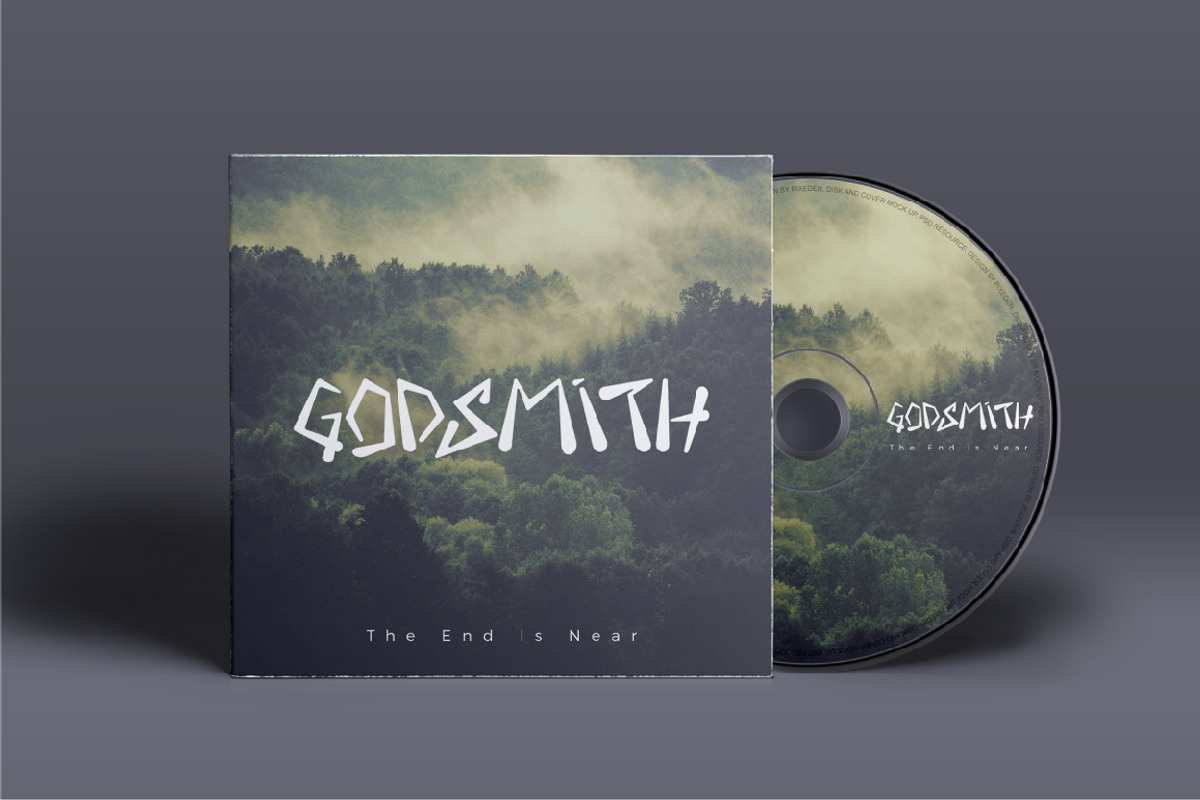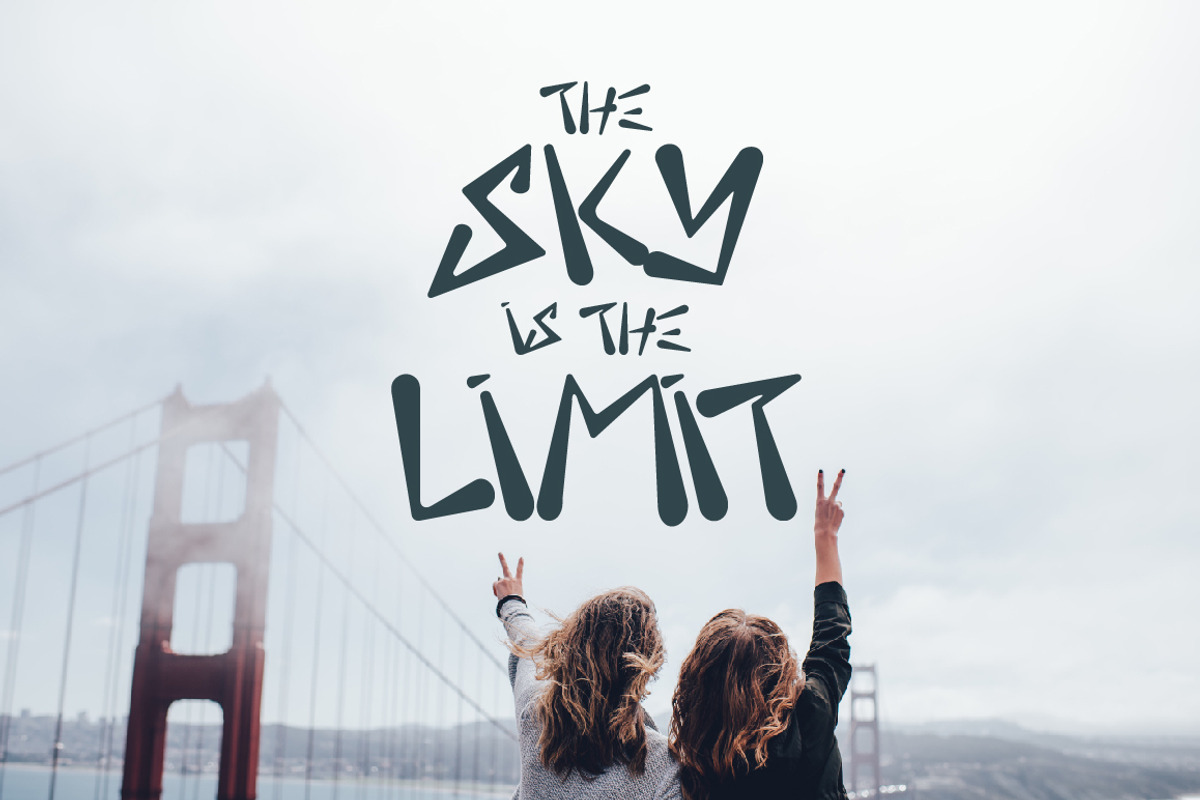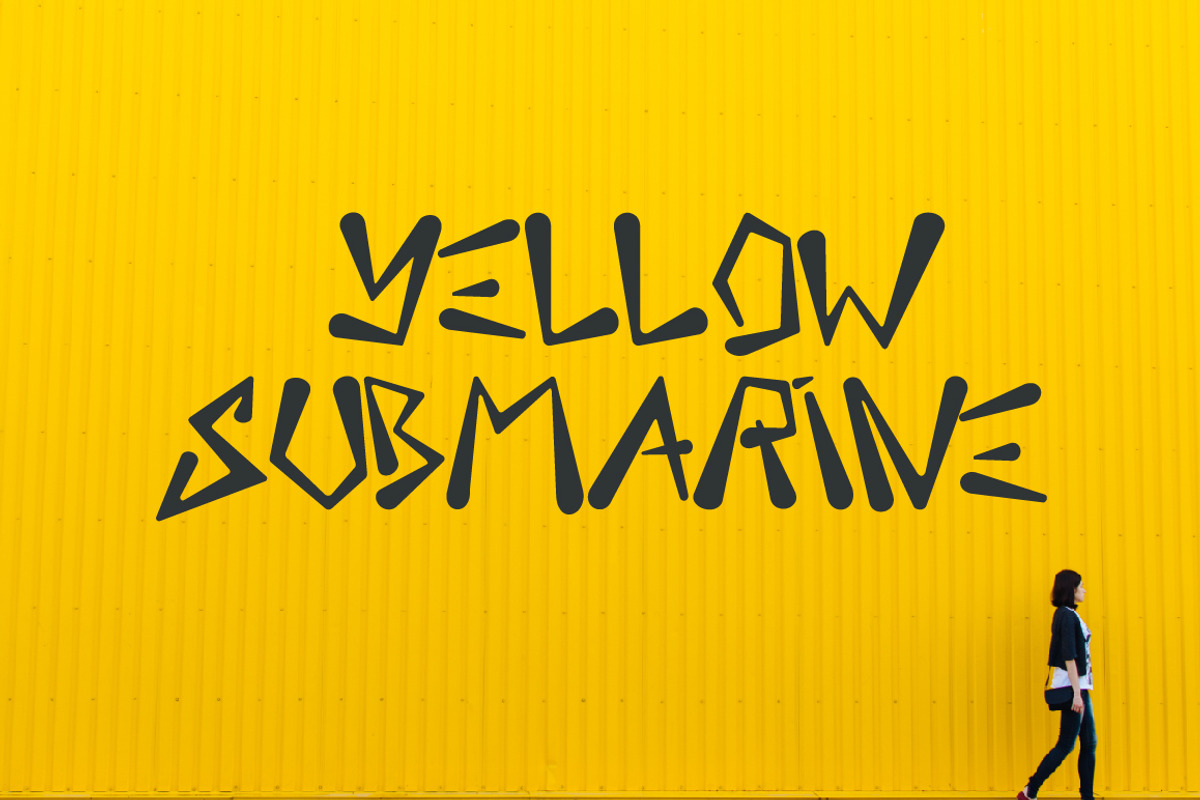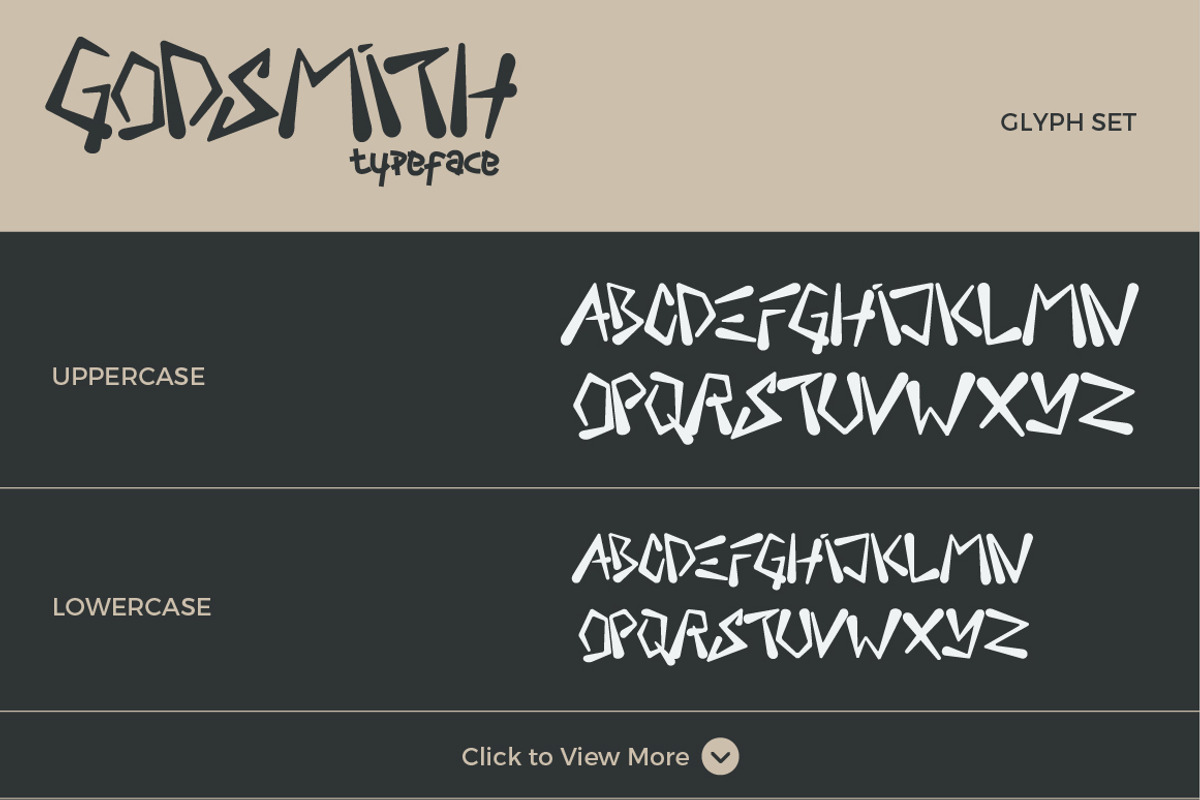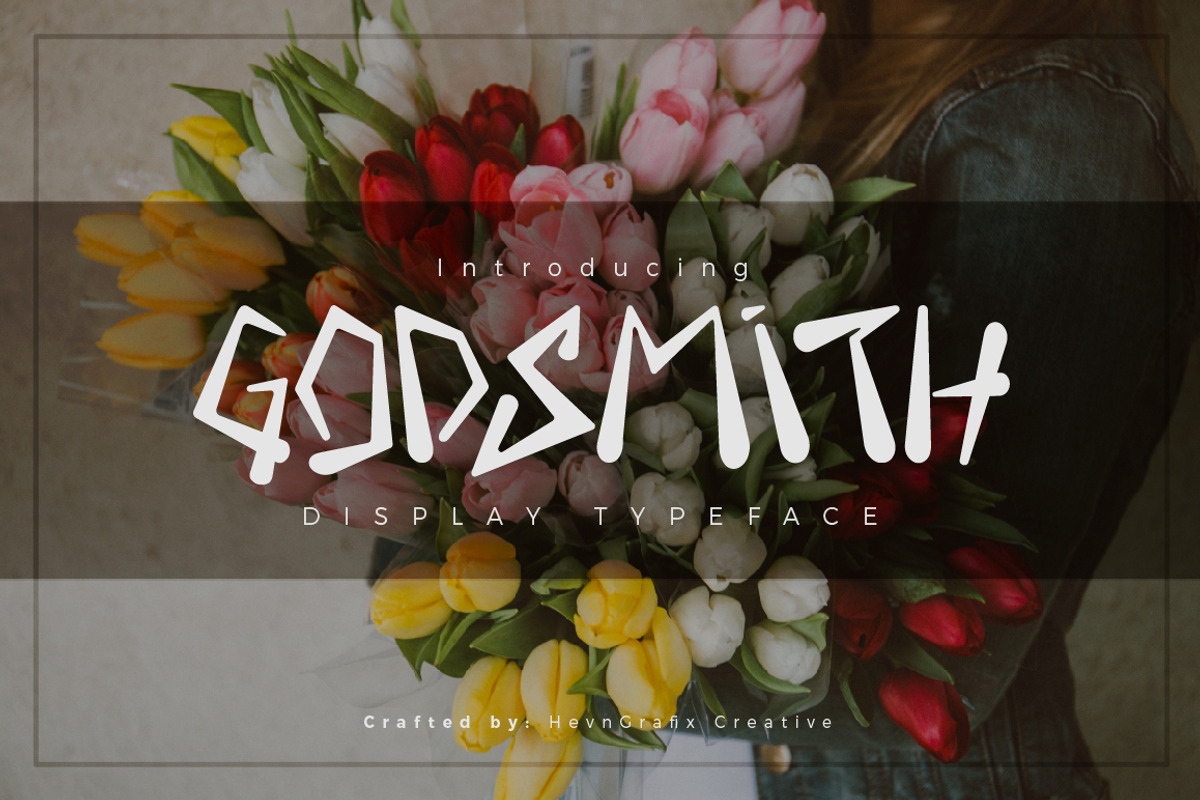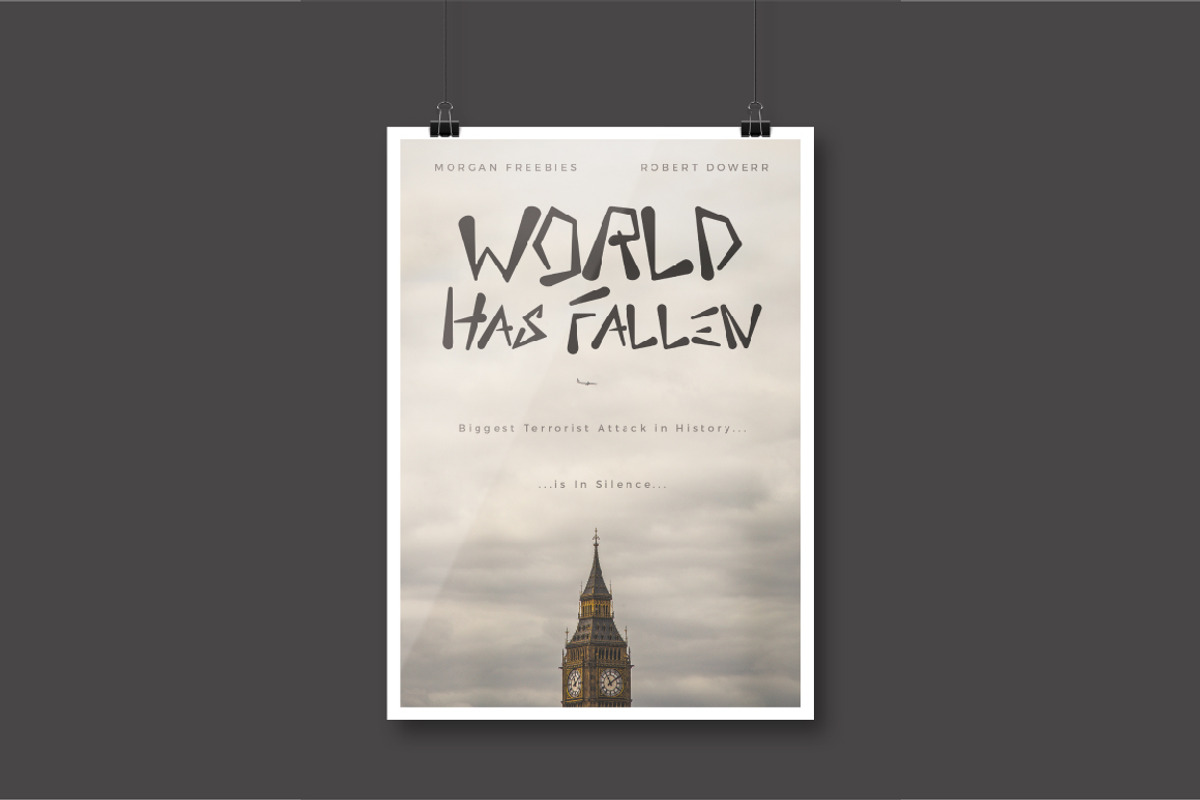
Godsmith Typeface
Godsmith Typeface by Marco Zenki is a font selected for branding, posters, packaging, typography.
Why Godsmith Typeface is worth a look
Godsmith Typeface by Marco Zenki fits naturally into Branding, posters, packaging, typography.